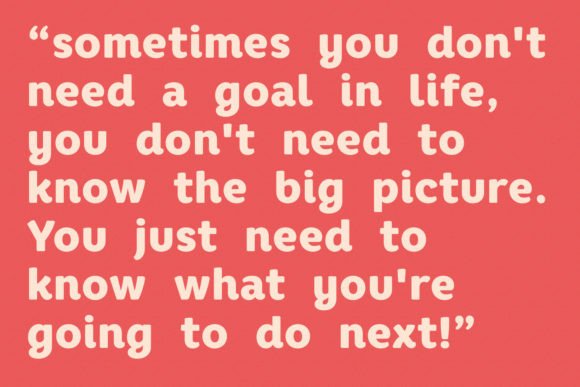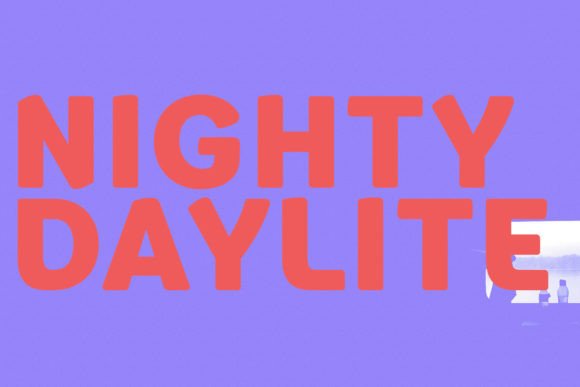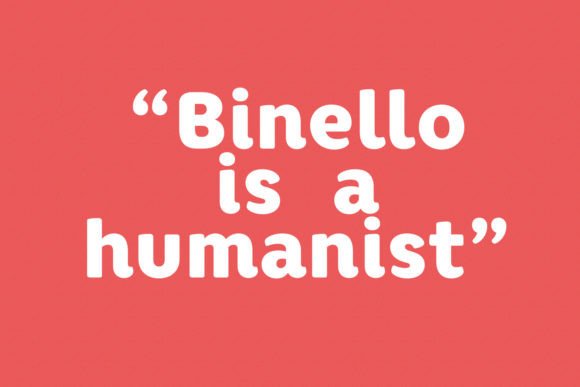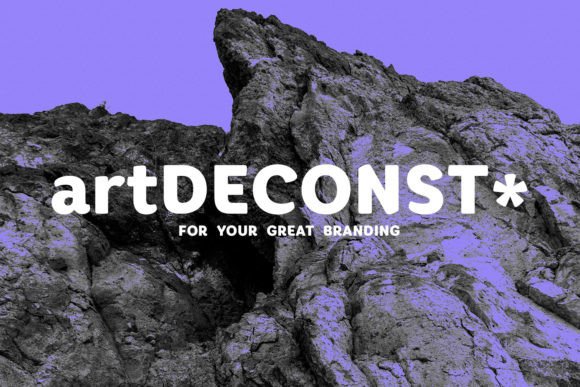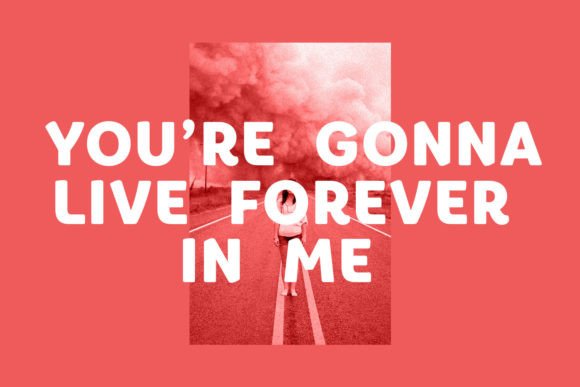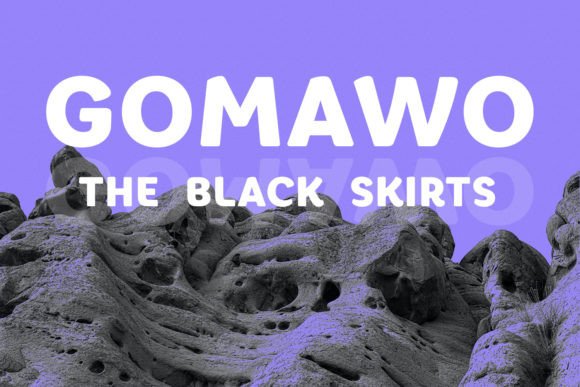
Meet Your New Design Partner: Binello Font
Have you ever sat at your desk, staring at a blank screen, waiting for inspiration to strike? The cursor blinks, and the clock ticks away, but your mind is a blank slate. That’s when you need a little help from a trusted friend – a font that can bring your designs to life. Enter Binello Font, a natural, semi-geometric sans serif font that’s perfect for breathing new life into your creative projects.
Binello Font is designed to be versatile and modern, making it an ideal choice for designers of all levels. Whether you’re working on a branding project, creating a website, or designing a social media campaign, Binello Font is the perfect companion to help you stand out from the crowd. Its fresh and contemporary look is sure to elevate your designs and leave a lasting impression on your audience.
With Binello Font, the possibilities are endless, and the results are guaranteed to be outstanding. So why settle for a boring, generic font when you can add a touch of sophistication and style to your designs with this amazing font?
Binello Font Key Features
- Font Family: Binello is a sans-serif font family.
- Size: Binello is available in 6 weights, ranging from Thin (100) to Black (900).
- Unique Characteristics: Binello features a clean, modern design with geometric shapes and a subtle rounded edge, making it ideal for corporate and editorial projects.
Binello Font Review
I recently had the chance to work with the Binello font, and here are my honest thoughts.
- Unique aesthetic: Binello has a distinctive look that’s sure to stand out in any design. Its quirky, hand-drawn feel makes it perfect for creative projects.
- High-quality rendering: The font renders beautifully at various sizes and resolutions, making it a great choice for digital projects.
- Good legibility: Despite its unique look, Binello is surprisingly easy to read, even at smaller sizes.
- Limited character set: Binello is a relatively new font, and its character set is still limited compared to more established fonts.
- Not ideal for body text: While Binello is great for headlines and titles, it may not be the best choice for large blocks of body text.
Overall, I’m impressed with the Binello font’s unique aesthetic and high-quality rendering. While it may have some limitations, it’s a great choice for designers looking to add some personality to their projects.
Tips for Getting the Most Out of Binello Font
For best results, use Binello font in headings and titles to add a touch of elegance and sophistication. You can also use it in body text for a more modern and clean look. Experiment with different font sizes and styles to create visual interest and balance.
Alternatives to Binello Font
Playfair Display is a luxurious and elegant font perfect for high-end branding, luxury products, and formal invitations. It is a serif font with intricate details and swashes, making it ideal for creating a sense of sophistication and refinement.
Compared to Binello Font, Playfair Display has a more elaborate and ornate design, making it more suitable for special occasions or premium products. Binello Font, on the other hand, has a more minimalist and modern feel, making it better suited for everyday use.
Merriweather is a classic serif font that is ideal for body text, especially for long blocks of text. It is a timeless and elegant font that is perfect for creating a sense of tradition and stability.
Compared to Binello Font, Merriweather has a more traditional and formal feel, making it better suited for academic or professional writing. Binello Font, on the other hand, has a more modern and playful feel, making it better suited for creative or informal writing.